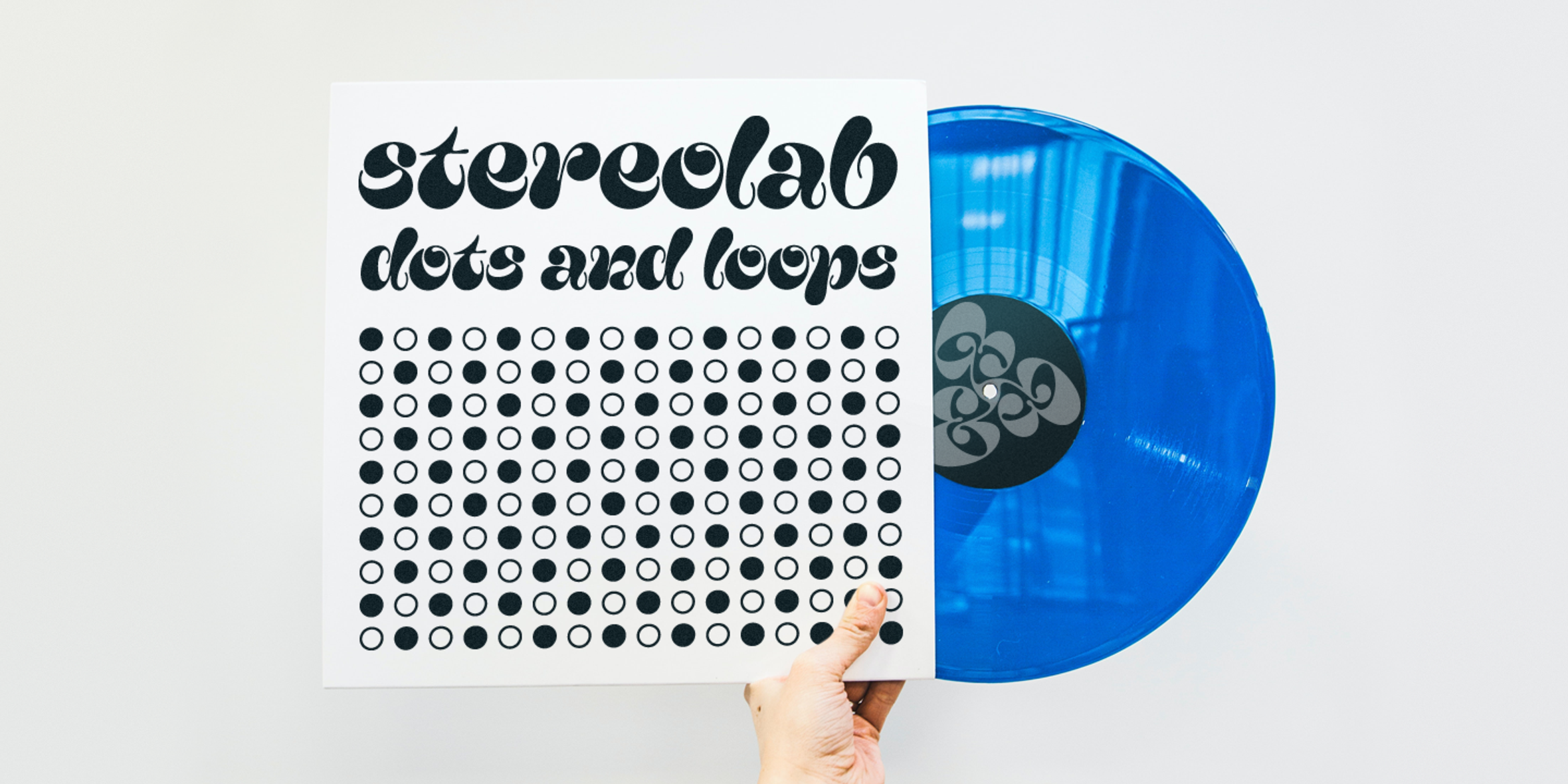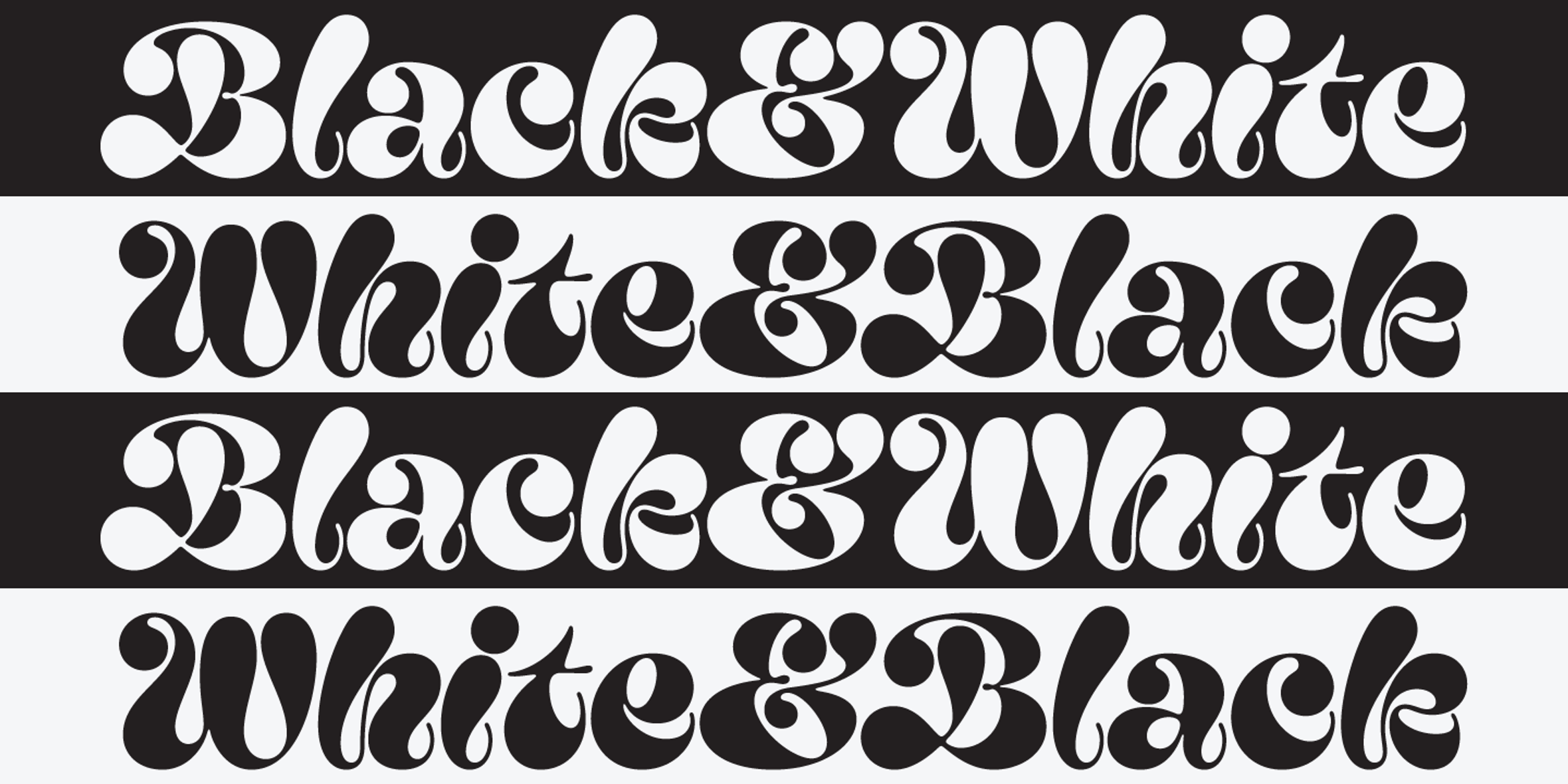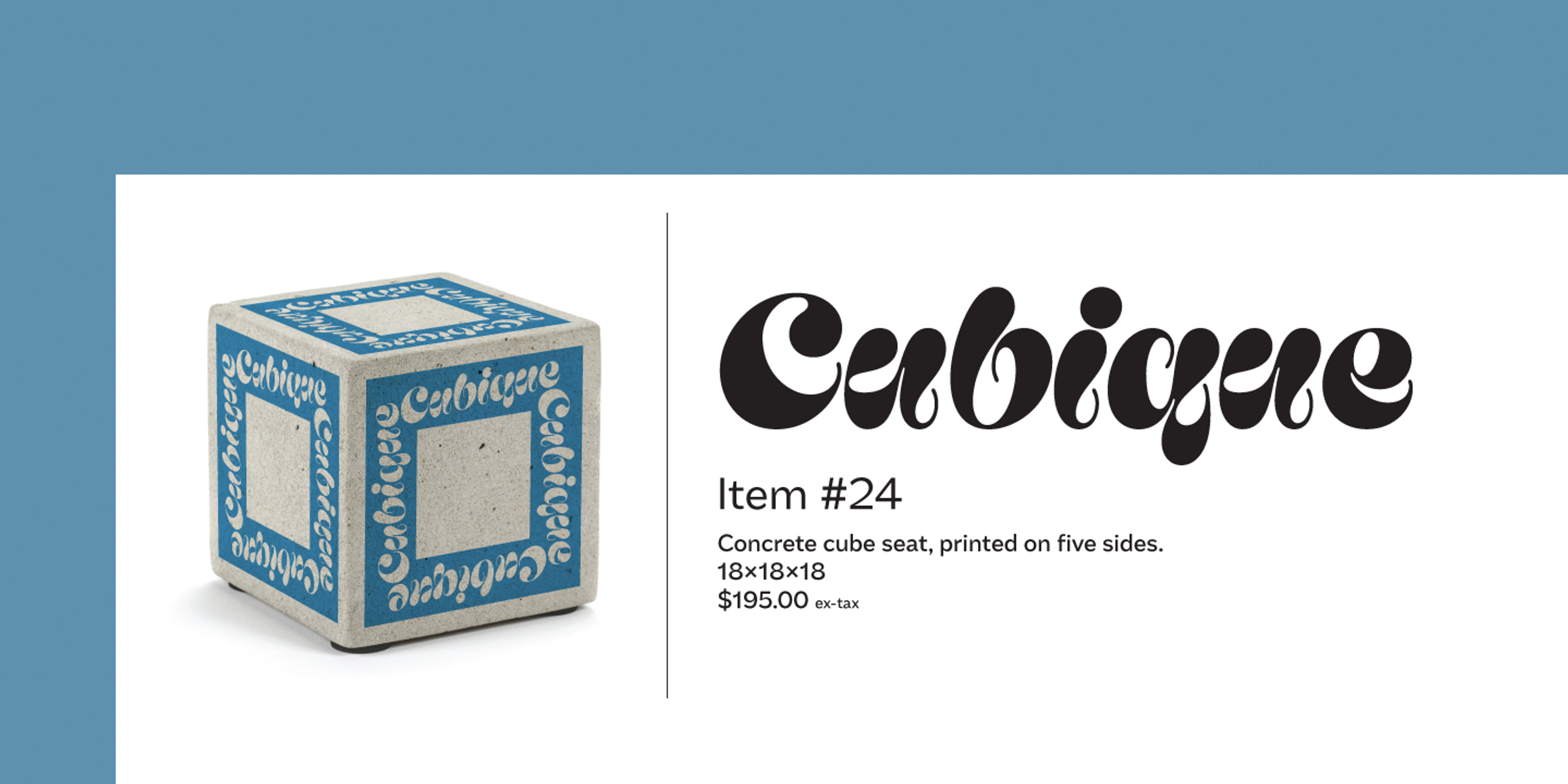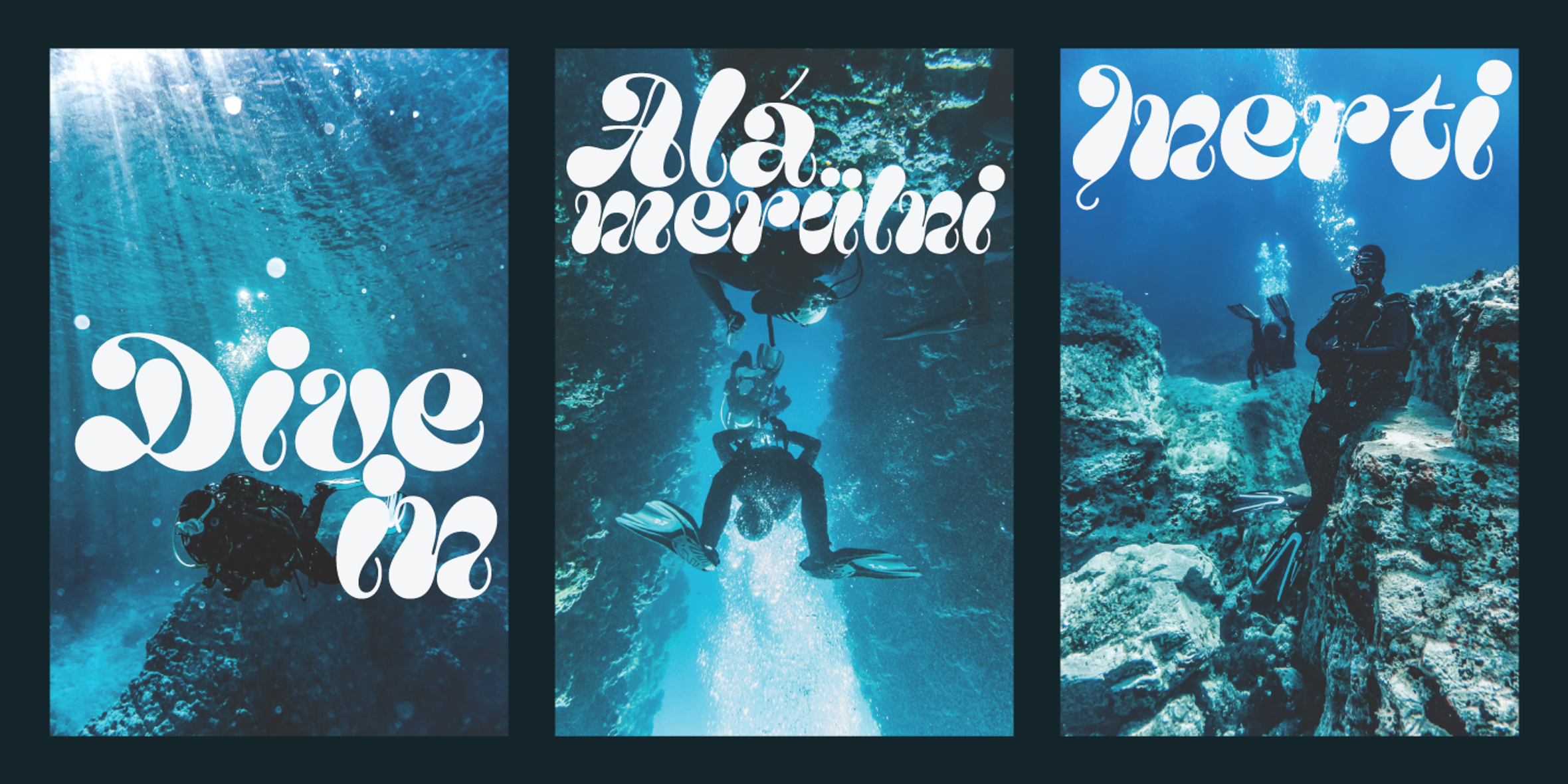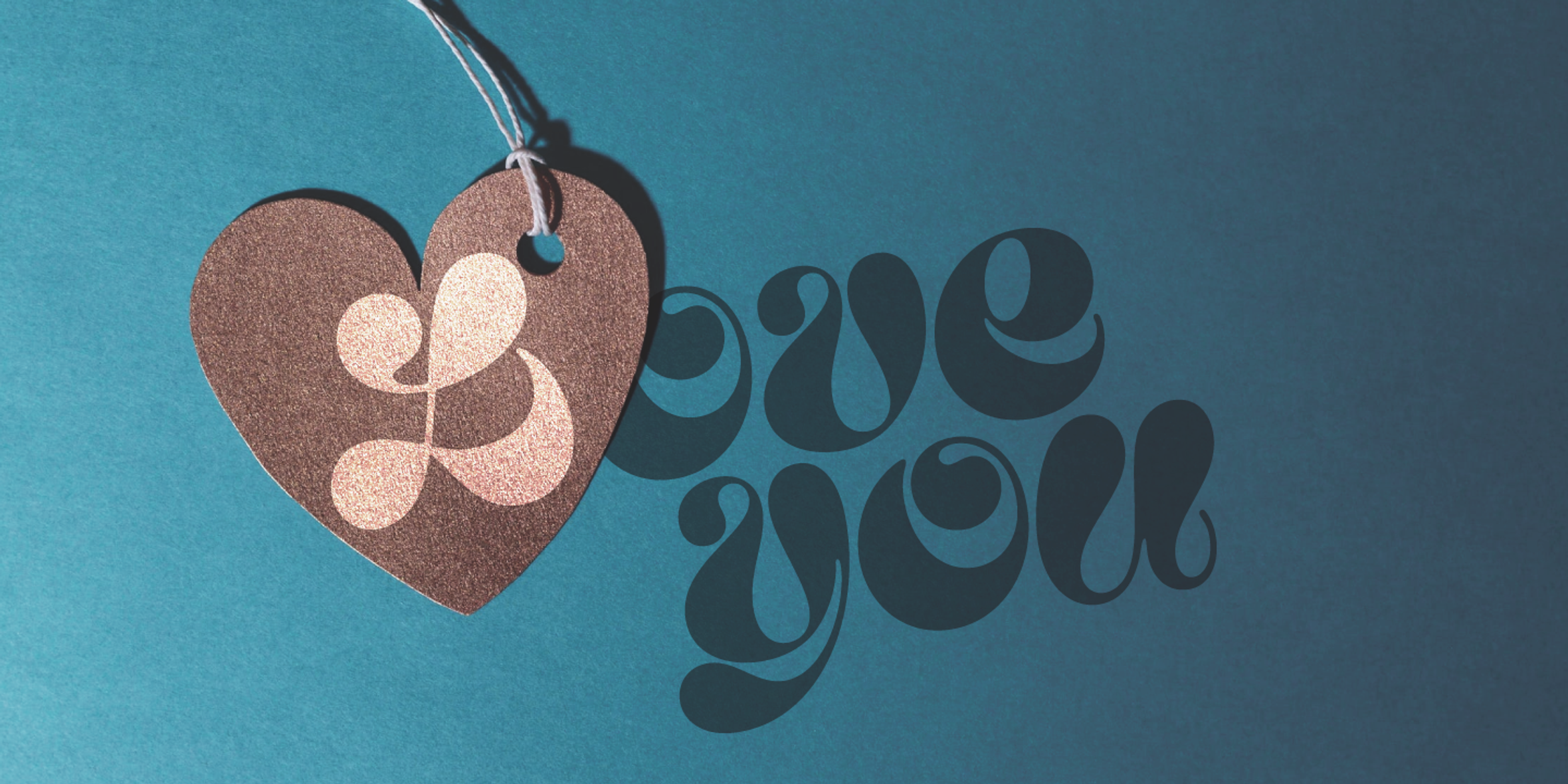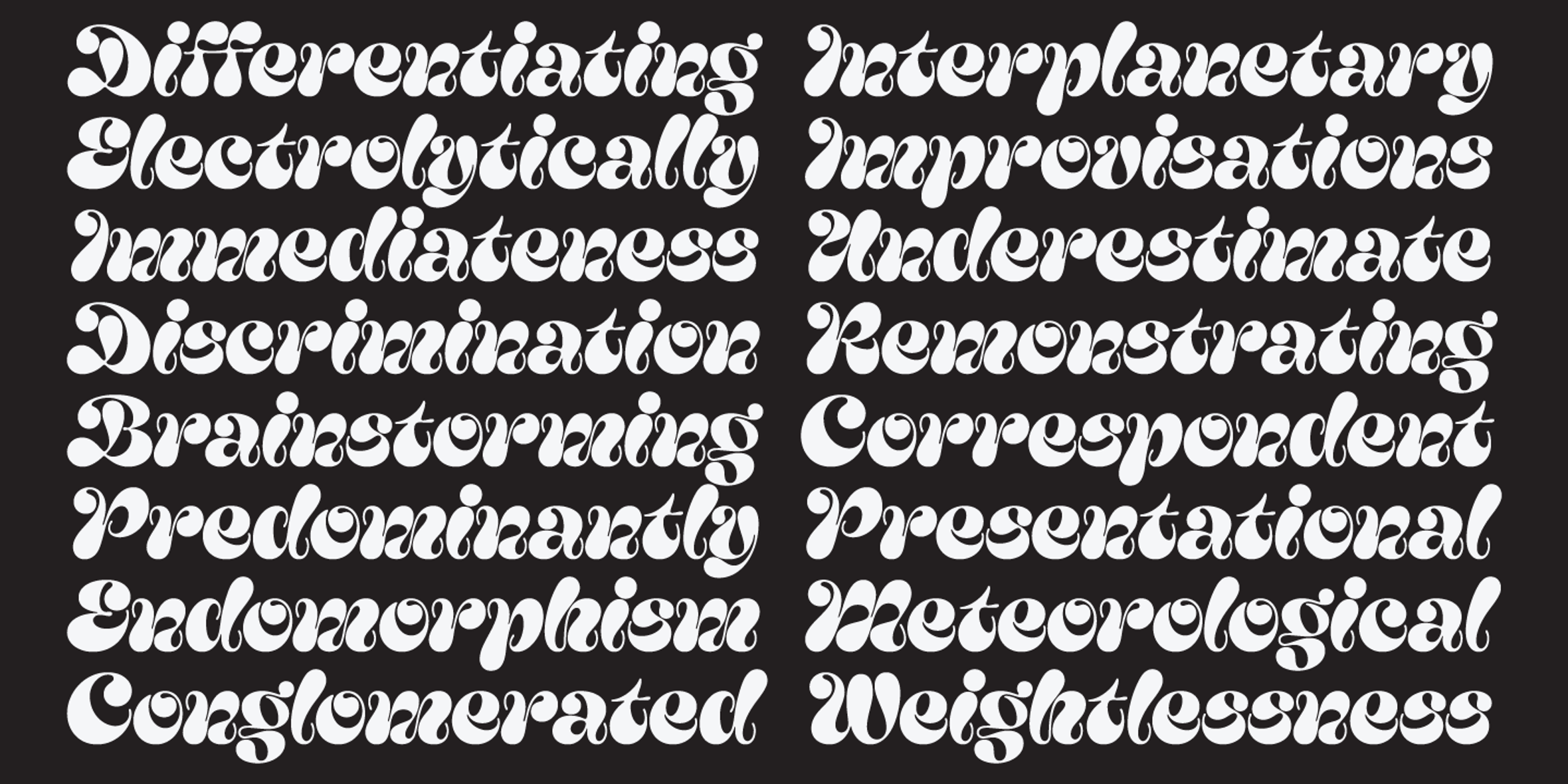
Yink Font
Yink Regular
Yink
Yink is wild — in the best way possible. It is a script equivalent of wearing sequins to breakfast: unapologetic, attention-seeking, and having more fun than everyone else in the room. Pushing big, bulbous terminals up a notch! It’s a shamelessly over-the-top font perfect for big, bold branding, bespoke candy shops, week-long music festivals, laugh-out-loud greeting cards, thought-provoking art exhibits, and more!